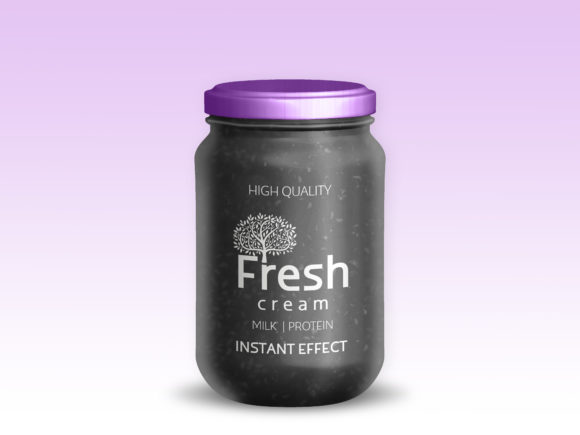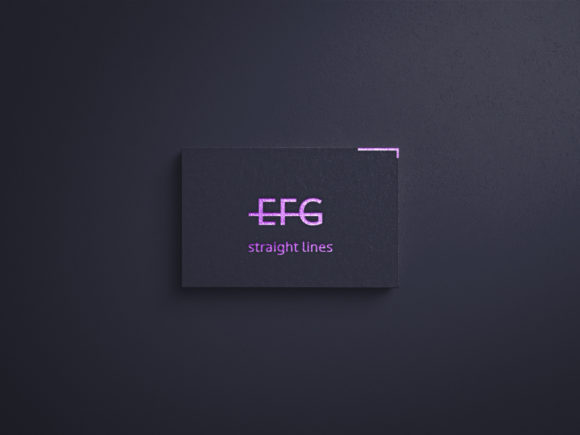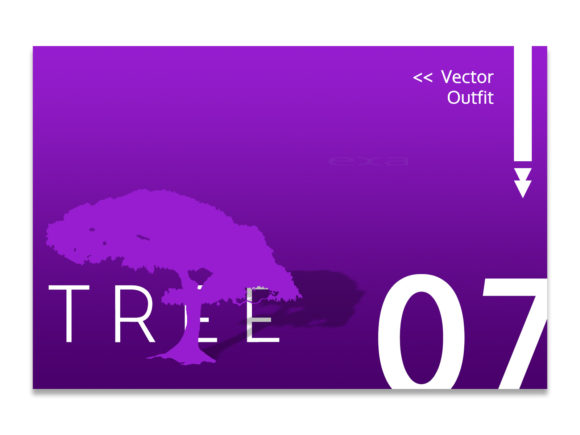
Introducing Exa Font: The Simple and Minimal Sans Serif for Your Design Needs
Are you a designer or crafter looking for a font that complements your design ideas without overpowering them? Look no further than Exa Font, a simple and minimal sans serif font that’s perfect for a wide range of design projects. In this article, we’ll explore the features and benefits of Exa Font, and show you how it can elevate your designs to the next level.
What is Exa Font?
Exa Font is a sans serif font that’s characterized by its clean and minimalist design. With its natural and casual feel, Exa Font is perfect for designers who want to add a touch of simplicity and elegance to their work. Whether you’re working on a logo, brochure, website, or any other design project, Exa Font is a versatile choice that will complement your design ideas without overpowering them.
Key Features of Exa Font
So, what makes Exa Font so special? Here are some of its key features:
- Simple and Minimal Design: Exa Font has a clean and minimalist design that’s perfect for designers who want to keep their designs simple and elegant.
- Sans Serif: Exa Font is a sans serif font, which means it doesn’t have any decorative lines or flourishes. This makes it perfect for designs that require a clean and modern look.
- Natural and Casual Feel: Exa Font has a natural and casual feel that makes it perfect for designs that require a friendly and approachable tone.
- Versatile: Exa Font is a versatile font that can be used for a wide range of design projects, from logos and brochures to websites and social media graphics.
Benefits of Using Exa Font
So, why should you choose Exa Font for your design projects? Here are some of the benefits of using Exa Font:
- Easier to Read: Exa Font is a clear and legible font that’s easy to read, even at small sizes. This makes it perfect for designs that require a lot of text, such as websites and brochures.
- Enhances Design: Exa Font’s simple and minimal design won’t overpower your design ideas. Instead, it will enhance them by adding a touch of elegance and sophistication.
- Time-Saving: Exa Font is a versatile font that can be used for a wide range of design projects. This means you can use it across multiple projects, saving you time and effort in the long run.
How to Use Exa Font in Your Designs
Using Exa Font in your designs is easy. Here are some tips to get you started:
- Pair it with Other Fonts: Exa Font can be paired with other fonts to create a unique and interesting design. Try pairing it with a serif font for a contrasting look.
- Use it for Headings and Body Text: Exa Font can be used for both headings and body text. Use it for headings to add a touch of elegance, and for body text to create a clear and legible design.
- Experiment with Colors: Exa Font can be used with a wide range of colors. Experiment with different colors to find the one that works best for your design.
Exa Font is a simple and minimal sans serif font that’s perfect for designers and crafters who want to add a touch of elegance and sophistication to their designs. With its clean and minimalist design, Exa Font is a versatile choice that can be used for a wide range of design projects. Whether you’re working on a logo, brochure, website, or any other design project, Exa Font is a great choice that will complement your design ideas without overpowering them.